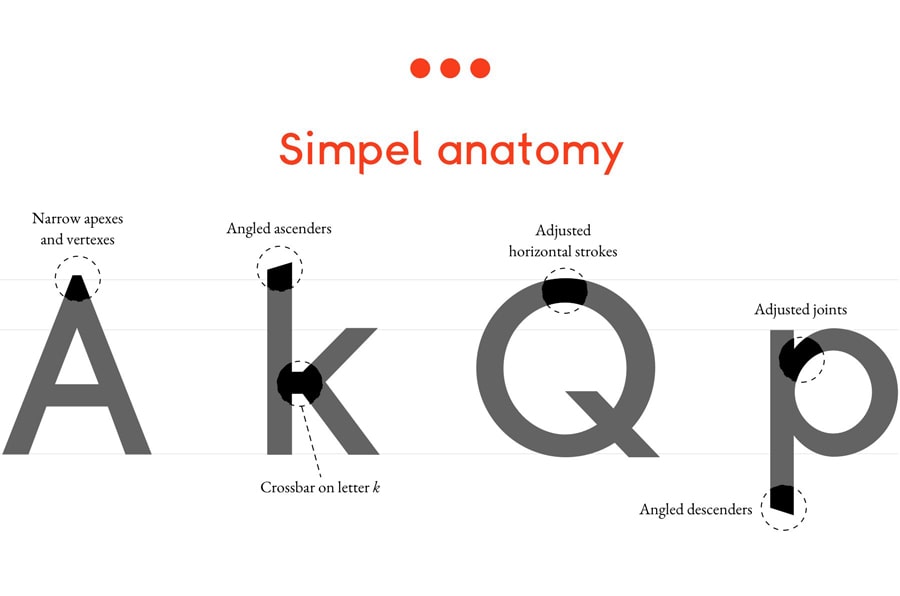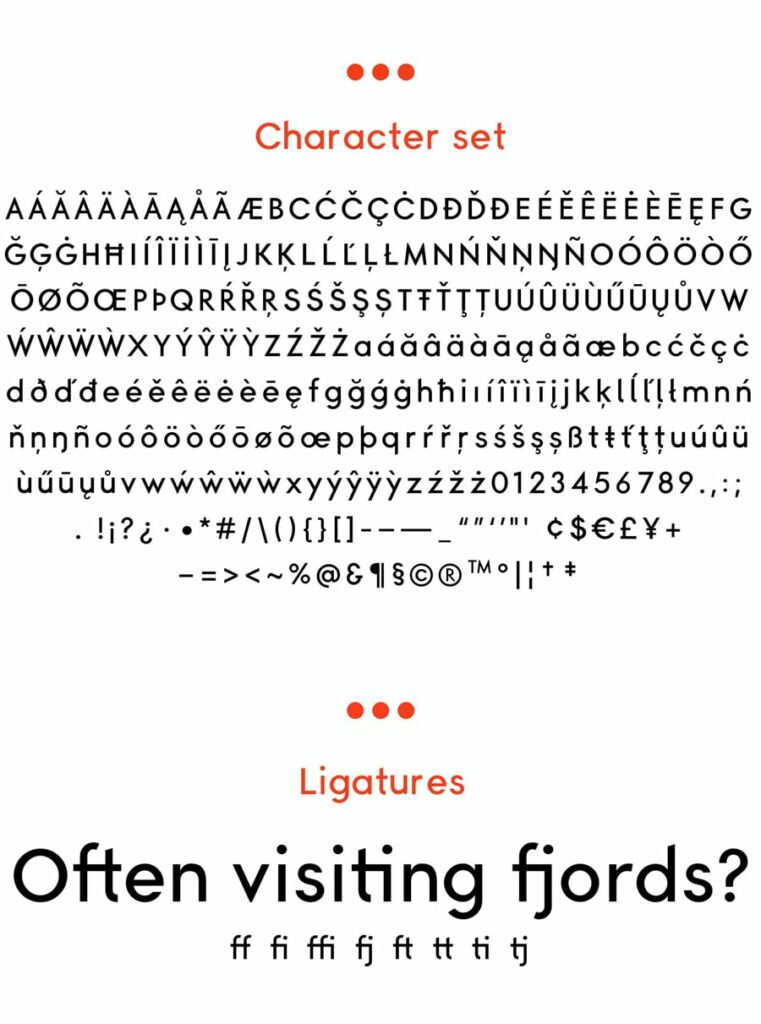
Simpel – Free Sans-Serif Font
Simpel is a free geometric font designed by Janko Jovanic, design manager from Berlin. Simple is a contemporary, low-contrast sans-serif typeface coming with a single weight. Also it has extended Latin support, including Western, Eastern, and South-eastern European languages. The free font files are created and provided for free by Janko Jovanovic and can be downloaded for free on his website.